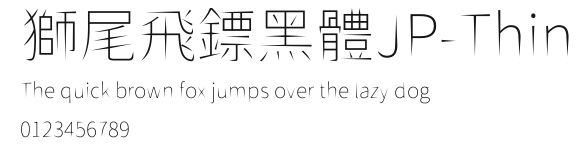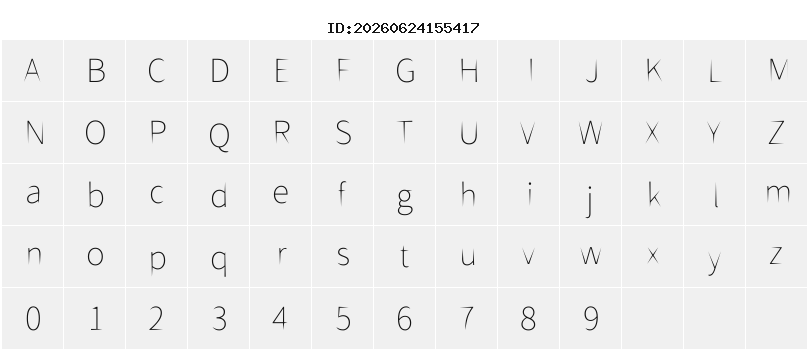
獅尾飛鏢黑體JP-Thin Preview
• Font Name: 獅尾飛鏢黑體JP-Thin
• Font Style: Thin
• Full Font Name: 獅尾飛鏢黑體JP-Thin
• PostScript Name: SweiDartSansCJKjp-Thin
About 獅尾飛鏢黑體JP-Thin.ttf
獅尾飛鏢黑體JP-Thin.ttf is a modern, elegant sans-serif font designed for ultimate readability and visual harmony. Perfect for branding, headlines, web design, and print materials.